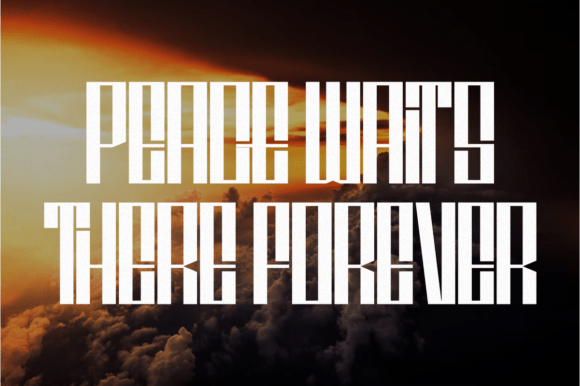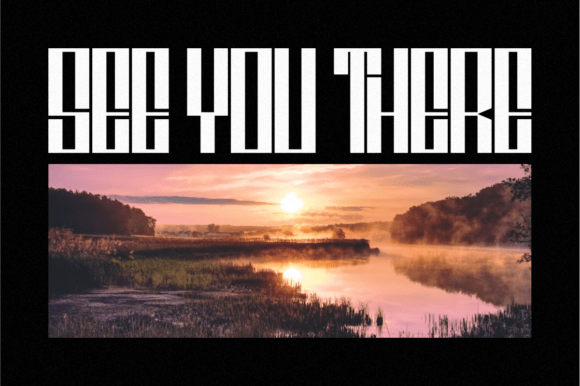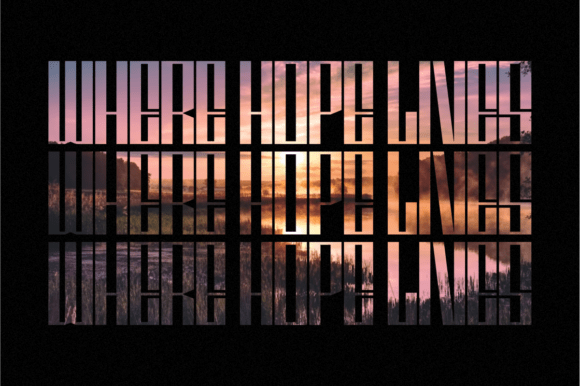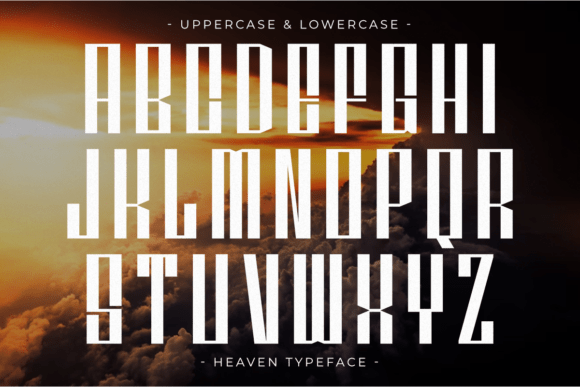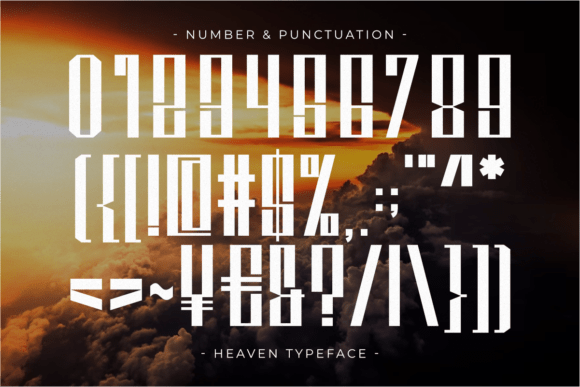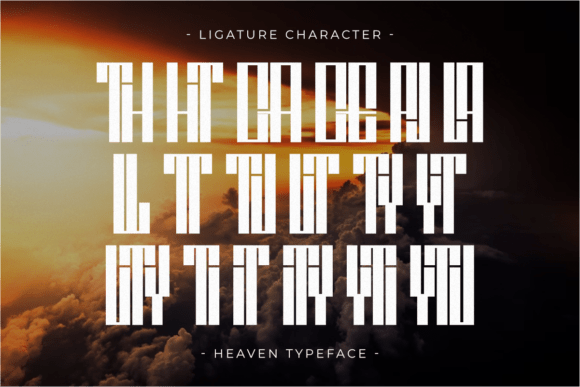
Introducing Heaven Font: The Ultimate Ultra Condensed Sans Serif for Bold Visuals
In the world of typography, a font can make or break the visual identity of a brand, product, or creative project. For designers and crafters looking to make a statement, Heaven Font is a game-changing ultra-condensed sans serif font that commands attention with its extreme vertical reach and unique geometric cuts. Designed to deliver maximum visual drama, Heaven Font is perfect for high-end luxury branding, architectural visuals, futuristic posters, and bold, monumental headlines.
Unleash the Power of Heaven Font
Heaven Font is a striking, assertive typeface that exudes confidence and sophistication. Its ultra-condensed design allows for maximum impact in a minimal amount of space, making it ideal for headlines, titles, and promotional materials. The font’s clean geometric cuts and angular lines create a sense of modernity and futurism, perfect for brands and projects that want to push the boundaries of visual expression.
Key Features of Heaven Font
- Ultra Condensed Design: Heaven Font’s extreme vertical reach makes it perfect for headlines, titles, and promotional materials where space is limited.
- Unique Geometric Cuts: The font’s clean, angular lines create a sense of modernity and futurism, setting it apart from more traditional typefaces.
- All-Caps Design: Heaven Font is designed specifically for use in all capital letters, ensuring a strong, professional, and instantly memorable visual identity.
- Subtle Ligatures: The font includes subtle ligatures for a customized, elite aesthetic that adds an extra layer of sophistication to your designs.
Applications for Heaven Font
Heaven Font’s versatility and visual impact make it suitable for a wide range of applications, including:
- Luxury Branding: Use Heaven Font to create bold, high-end logos and branding materials that exude sophistication and elegance.
- Architectural Visuals: The font’s clean lines and geometric cuts make it perfect for architectural visuals, such as building facades, signage, and marketing materials.
- Futuristic Posters: Heaven Font’s futuristic aesthetic makes it ideal for posters and promotional materials that require a bold, attention-grabbing typeface.
- Digital and Print Media: Use Heaven Font to create striking headlines, titles, and promotional materials for digital and print media, including magazines, newspapers, and online publications.
Why Choose Heaven Font?
- Instant Recognition: Heaven Font’s unique design ensures instant recognition and memorability, making it perfect for brands and projects that want to stand out.
- Professional Aesthetic: The font’s clean lines, geometric cuts, and subtle ligatures create a professional, elite aesthetic that’s perfect for high-end branding and marketing materials.
- Versatility: Heaven Font’s versatility makes it suitable for a wide range of applications, from luxury branding to futuristic posters and digital media.
Heaven Font is a game-changing ultra-condensed sans serif font that’s perfect for designers and crafters looking to create bold, visually striking designs. With its unique geometric cuts, extreme vertical reach, and subtle ligatures, Heaven Font is the ultimate typeface for high-end luxury branding, architectural visuals, futuristic posters, and bold, monumental headlines. Whether you’re working on a luxury brand, architectural project, or futuristic poster, Heaven Font is the perfect choice for creating a strong, professional, and instantly memorable visual identity.